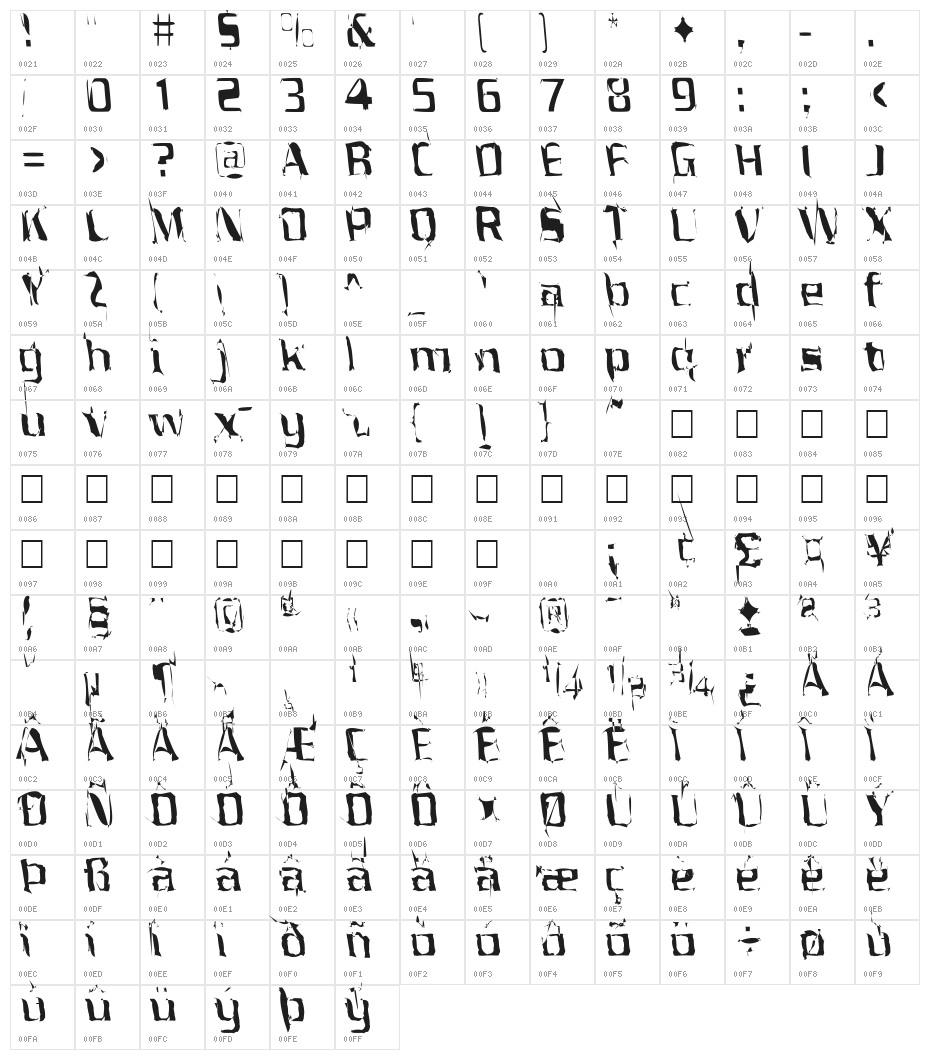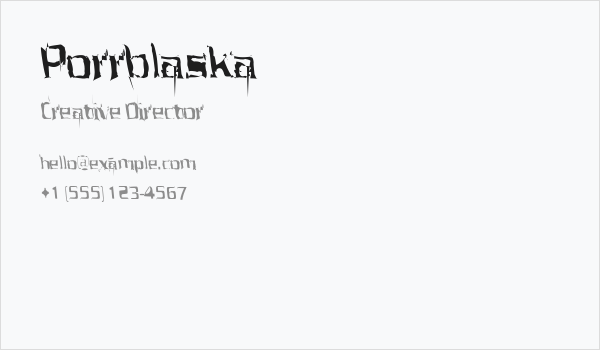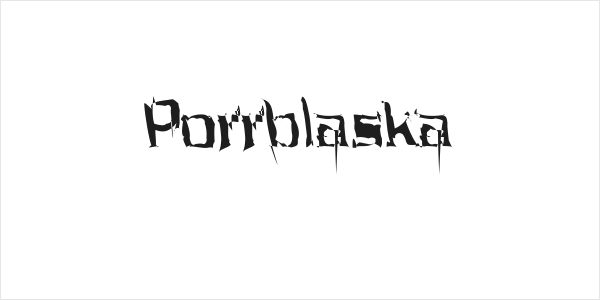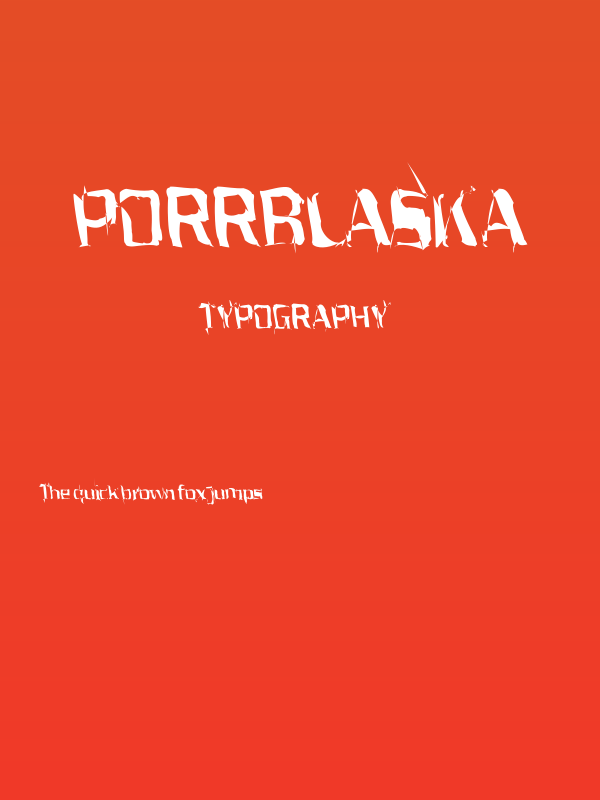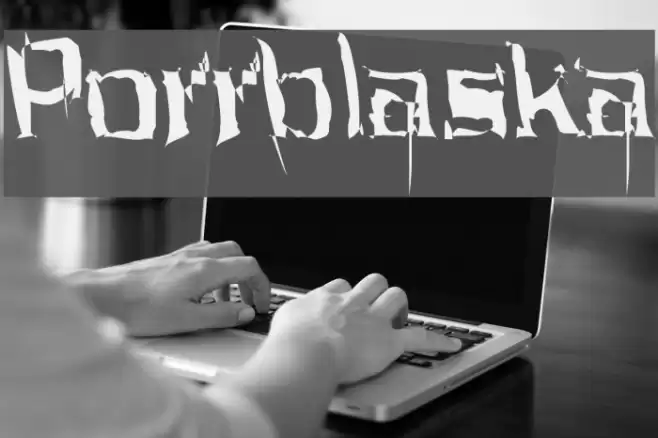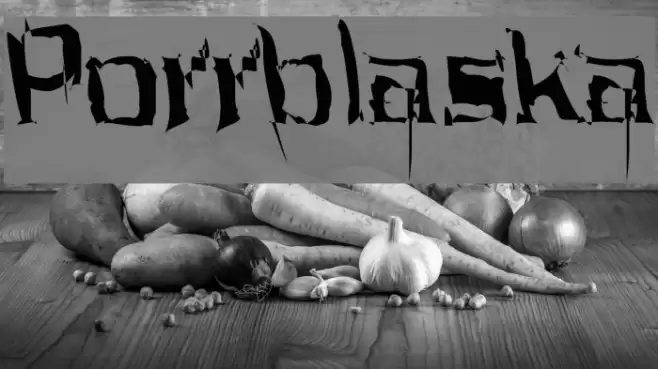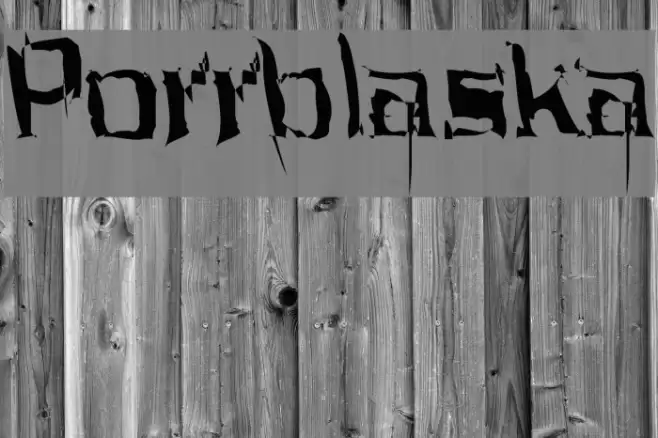
Porrblaska Font
Porrblaska Description
This font features a highly distressed and fragmented appearance, giving it a unique, edgy style. The characters are irregularly shaped with jagged edges and varying thickness, creating a chaotic yet artistic look. The uppercase and lowercase letters maintain a consistent height, while the numbers and special characters follow the same distressed theme. This font is visually striking and commands attention, making it ideal for projects that require a bold statement. The overall design suggests a sense of rebellion and nonconformity, perfect for creative and unconventional uses.
| Overall Style | Modern, Edgy |
| Proposed Projects | Album covers, street art designs, edgy branding, posters, and creative digital artwork. |